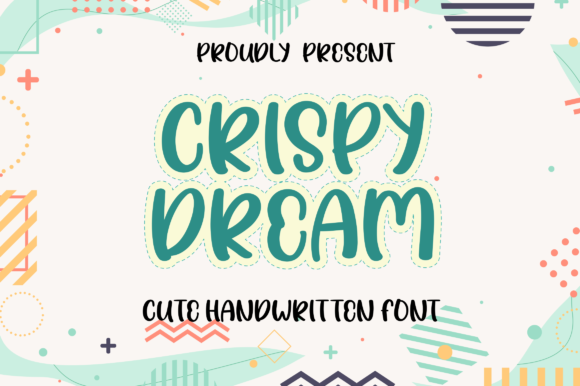
Introduce the Magic of Crispy Dream Font!
Prepare to fall head over heels for Crispy Dream, a captivating script font that will ignite your creativity. Its enchanting handwritten style whispers playfulness and warmth, making it the perfect choice for projects that call for a touch of whimsy and charm.
This versatile font is like a chameleon, effortlessly adapting to a myriad of creative endeavors. Whether you're crafting enchanting invitations, designing eye-catching social media posts, or creating heartfelt greeting cards, Crispy Dream gracefully enhances your creations.
With its playful allure, Crispy Dream possesses the power to transform ordinary words into extraordinary works of art. Its intricate swirls and charming curves dance upon the page, captivating the hearts of both readers and viewers.
As you delve into the world of Crispy Dream, you'll discover a font that is not merely a tool, but a true companion on your creative journey. Its versatility knows no bounds, empowering you to express your unique style with endless possibilities.
Whether you're a seasoned designer or just starting to explore the world of fonts, Crispy Dream is the perfect choice to add a dash of magic to your projects. Its user-friendly nature makes it a joy to work with, allowing you to effortlessly create stunning designs that will leave a lasting impression.
So, don't resist the allure of Crispy Dream. Dive into its enchanting world and unlock the endless creative possibilities that await. With this remarkable font at your fingertips, every project will become a masterpiece, leaving your audience spellbound by its captivating charm.